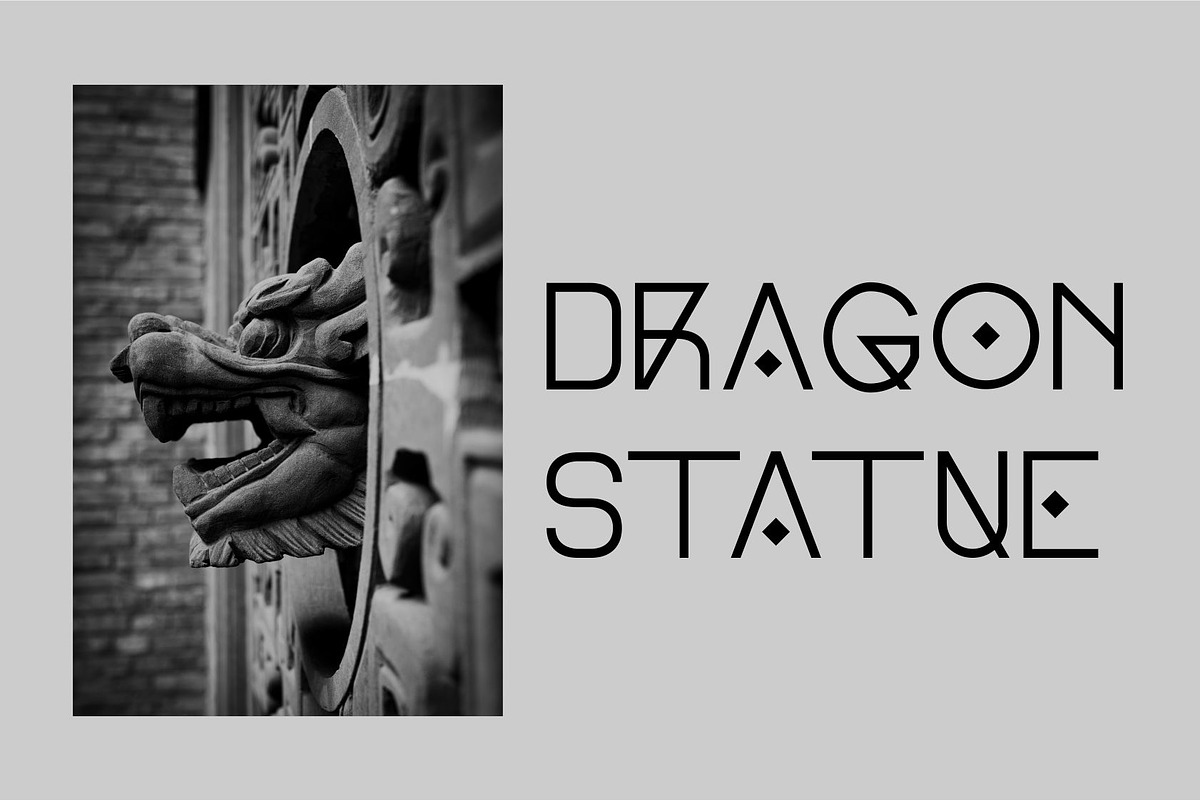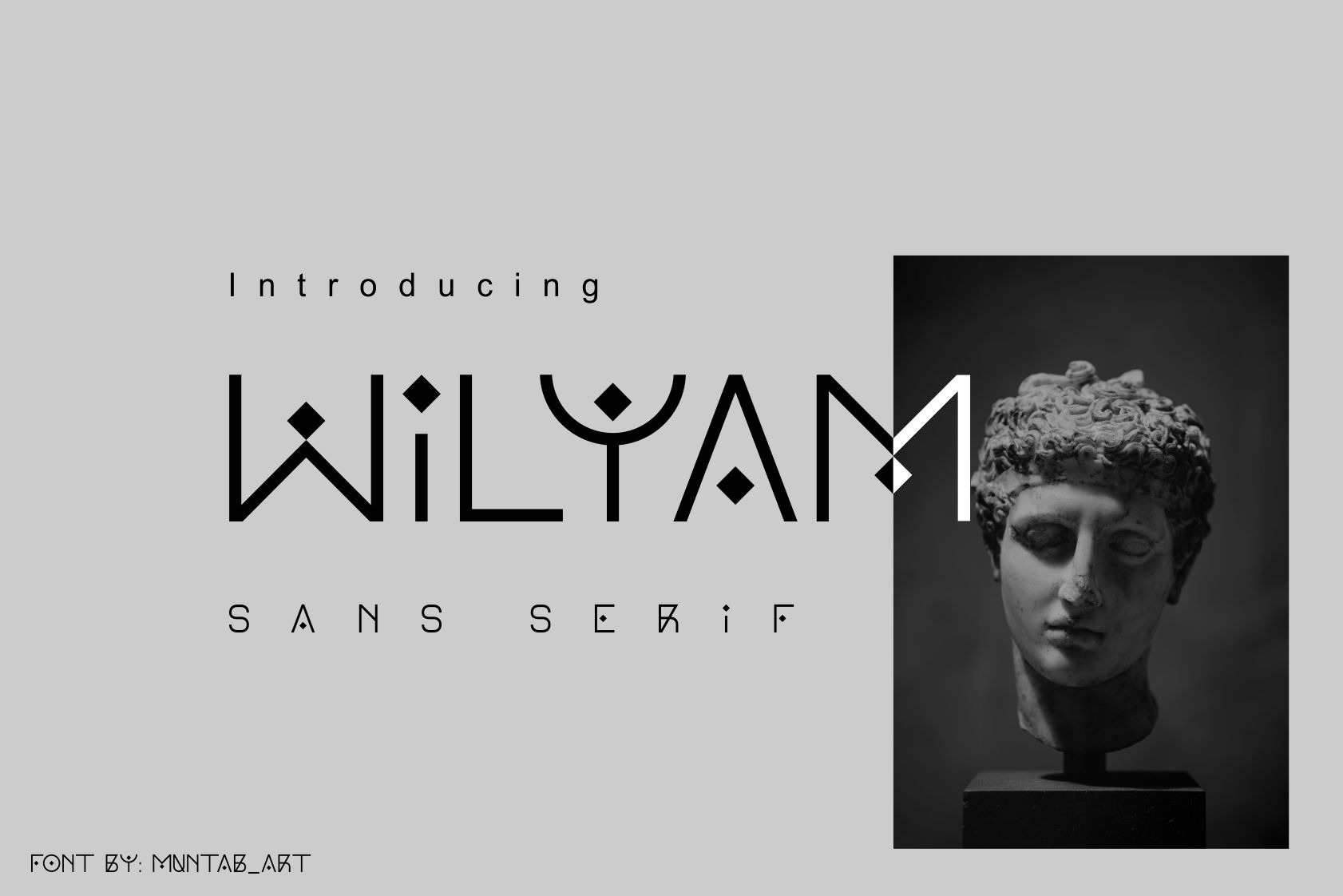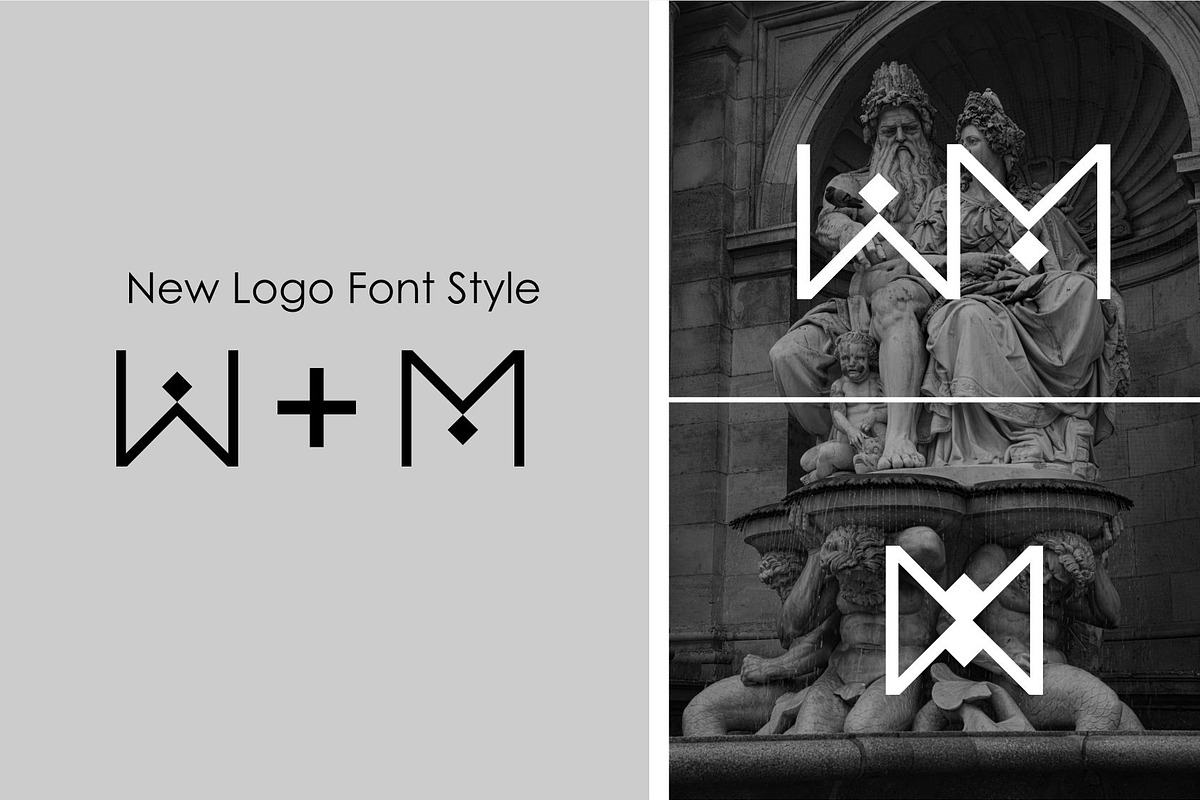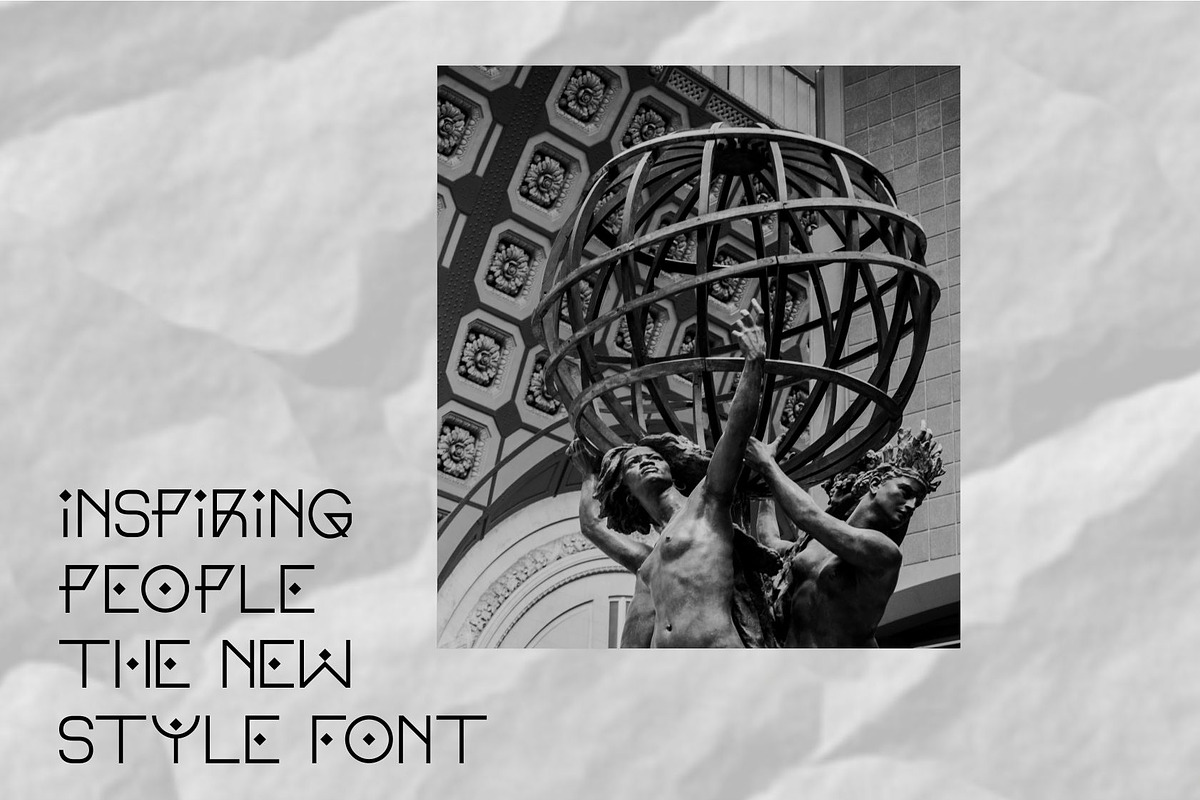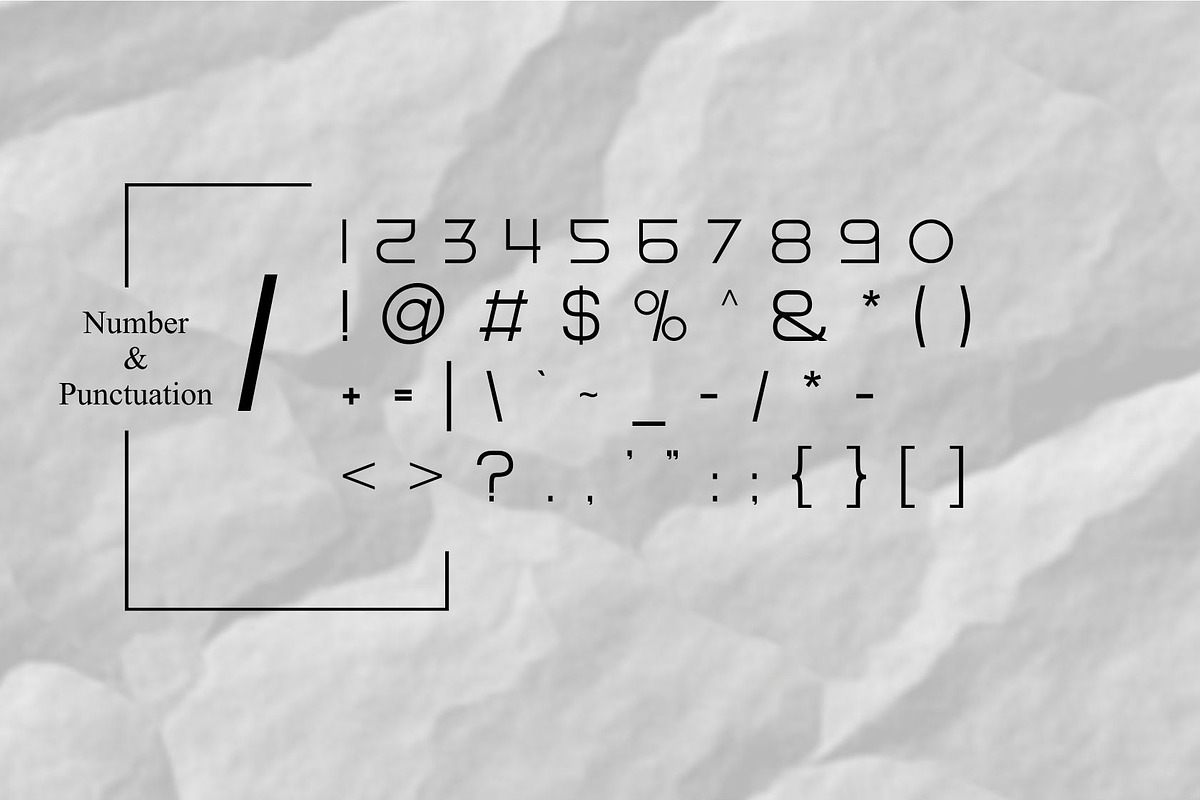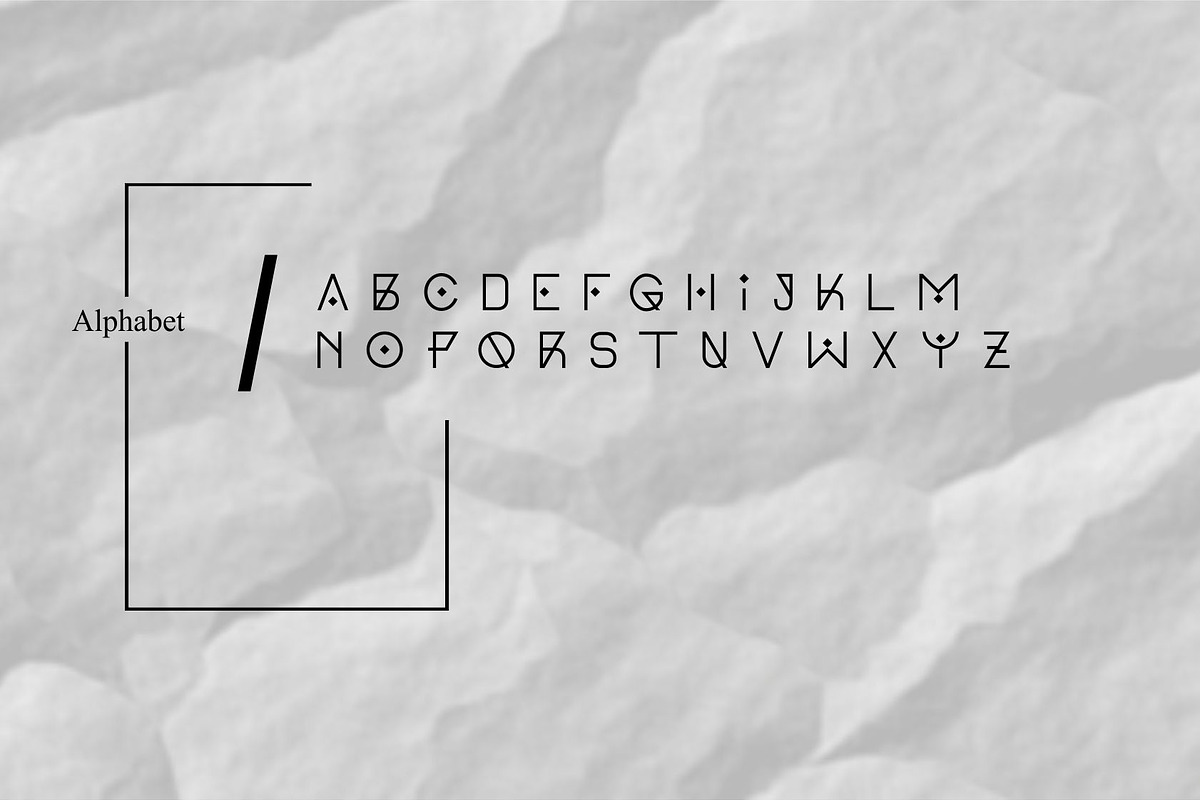
Wilyam | Modern Sans Serif font
Wilyam fonts includes uppercase letters, numerals, a large range of punctuation. Sans serif font with modern style. Created for poster, web design, branding, illustrations, badges and some other works.